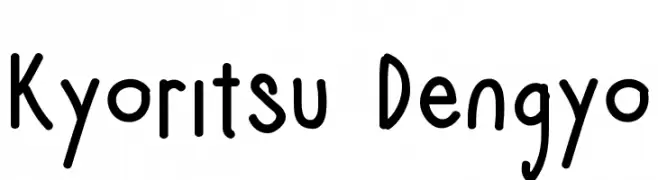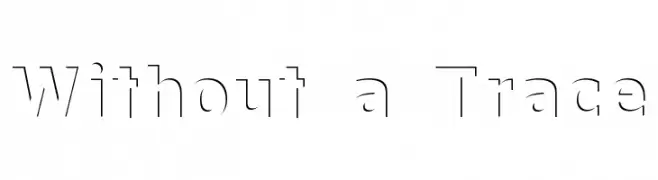
A playful, handwritten font with tall, narrow letters and a bold, casual style.
A bold stencil font with sharp edges and a modern, industrial aesthetic.
A bold, stencil-style font with high contrast and geometric shapes.
A modern, geometric sans-serif font with a clean and professional appearance.
A bold, modern font with thick, uniform strokes and high readability.
A bold, impactful font with thick, uniform strokes and strong geometric shapes.
A playful, hand-drawn font with rounded edges and a whimsical style.
A bold, geometric font with angular and dynamic character designs.
A modern, stencil-like font with geometric lines and strategic cutouts.
A bold, impactful font with thick, uniform strokes and a modern, professional appearance.